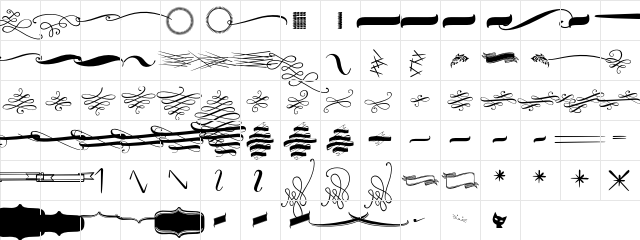
Mishka Ornaments Regular
| Foundry | Emil Bertell |
| Designer | Emil Bertell |
Design Context for Mishka Ornaments Typeface
Mishka Ornaments is built around its visual character rather than neutral utility — its distinctive forms are designed to make an impression at display sizes.
Font Pairing: Pair with a clean neutral sans-serif for body copy to let Mishka Ornaments's character lead without overwhelming the composition.
Pro Tip: Treat Mishka Ornaments as the centrepiece of your typographic hierarchy. One strong heading set in a decorative face can carry an entire layout.